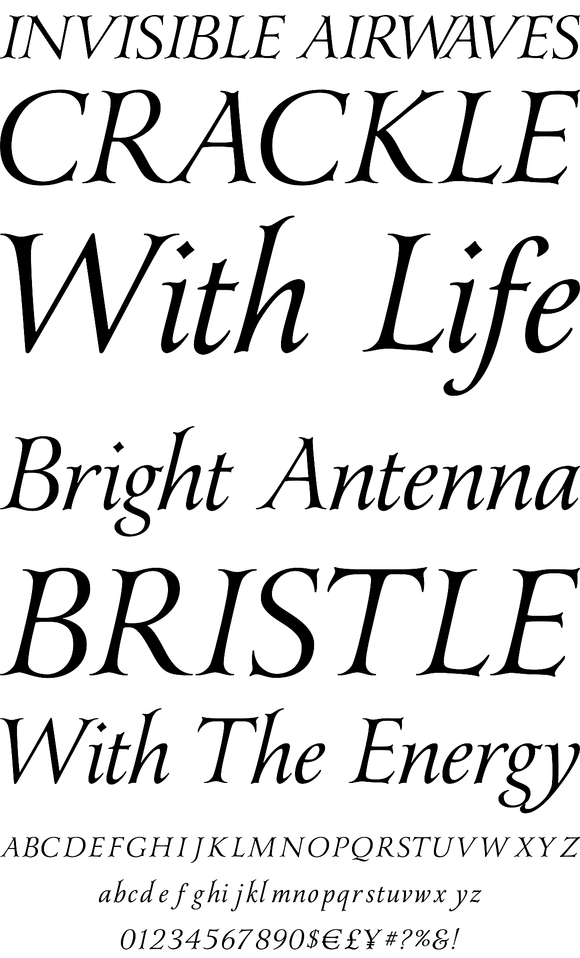
Foundry: Laura Worthington
It was a sunny summer afternoon, and Yana and I had escaped for lunch from the graphic design studio where we worked. We sat at an outdoor patio eating and discussing fonts. In particular, we discussed the idea of a serif face that would be very versatile—from simple to complex styling—with letters adorned with swashes. We would be able to use it for just about everything—we could customize it for logos and headlines, and then be able to use the same font for text, too—it would be a designer’s tool kit. I told Yana that as soon as I figured out how to design type, that would be one of the designs I would create—and I would name it after her. She laughed, and said, “Well, I’ll be the first person to buy it.”
As I began sketching out this font, I was drawn to the idea of creating it with classic proportions, and as it developed, it took on an old-style Victorian look, yet with a touch of modernity and friendliness. Yana is a growing family—I will be adding bold, italic, and antique versions, more alternates…even decorated initials!
Yana R Swash Caps I and Yana R plus Swash Caps I contain 131 Swash Caps and 83 Petite Swash Caps. Please refer to the User’s Guide for all available characters.